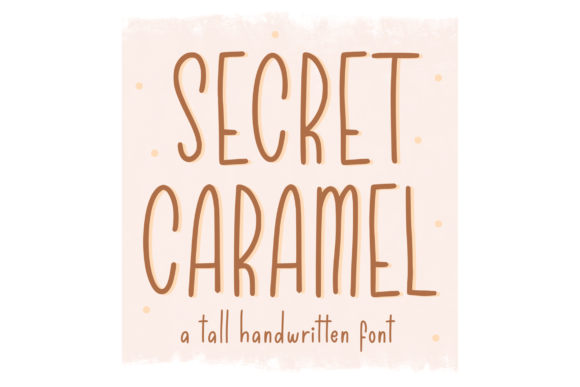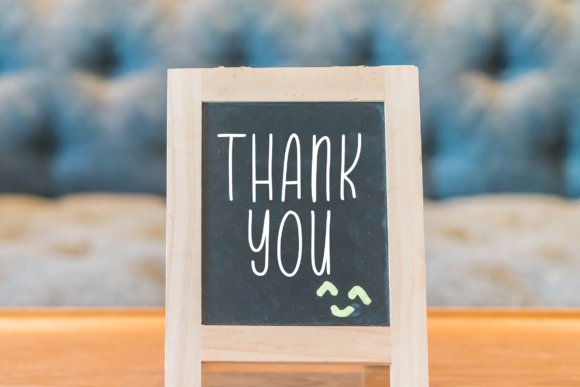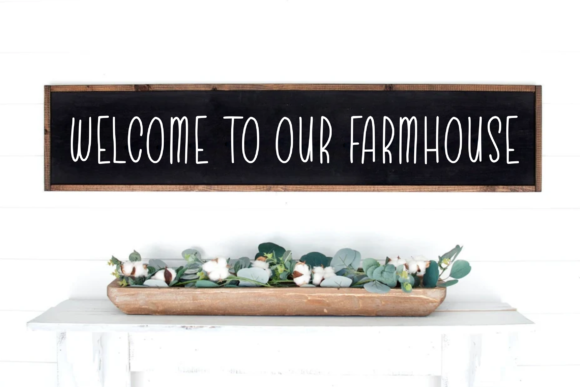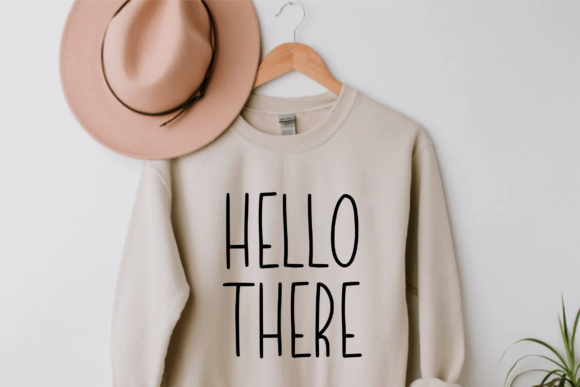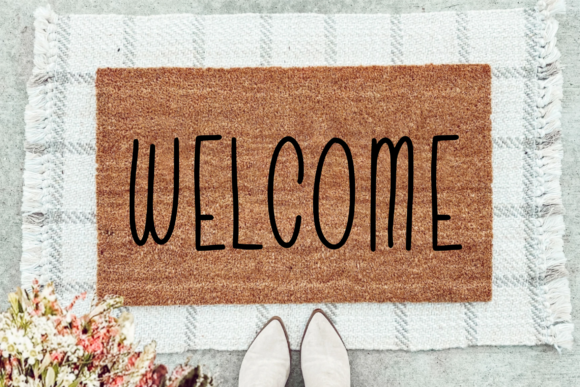
About Secret Caramel Font
“Secret Caramel” is not just your ordinary font; it’s an embodiment of creativity and versatility. With its tall handwritten style, this font stands out as a unique and charming addition to any design project. The name itself evokes a sense of mystery and sweetness, hinting at the delightful qualities that this font brings to the table.
Standing tall among its peers, “Secret Caramel” captures attention with its distinct letterforms that reach new heights. Its tall stature gives it a commanding presence, making it perfect for grabbing the viewer’s attention and leaving a lasting impression. Whether it’s on product packaging, branding projects, magazines, social media graphics, or wedding materials, “Secret Caramel” adds a touch of allure and sophistication to every piece it graces.
The handwritten nature of “Secret Caramel” adds warmth and authenticity to designs, making them feel more personal and inviting. It’s like a handwritten note from a friend, conveying a sense of care and attention to detail. This quality makes it ideal for conveying messages in a genuine and heartfelt manner, whether it’s expressing words above a background or delivering a memorable quote.
Moreover, “Secret Caramel” offers a wide range of creative possibilities. Its versatility allows it to adapt to various design styles and themes, from elegant and refined to playful and whimsical. This adaptability makes it a go-to choice for designers looking to inject personality and character into their projects.
In the realm of branding, “Secret Caramel” serves as a powerful tool for creating memorable and impactful identities. Its distinctiveness helps brands stand out in a crowded marketplace, while its handwritten charm adds a human touch that resonates with audiences on a deeper level.
When it comes to editorial design, “Secret Caramel” adds a touch of flair to magazines and publications. Its tall letterforms lend themselves well to headlines and titles, creating visual interest and drawing readers into the content.
On social media, “Secret Caramel” shines as a versatile font for creating eye-catching graphics and posts. Its playful yet elegant style helps content stand out in busy feeds, driving engagement and leaving a lasting impression on followers.
In wedding materials, “Secret Caramel” brings a touch of romance and sweetness to invitations, save-the-dates, and other stationery. Its handwritten charm adds a personal touch to these special occasions, making them even more memorable for couples and their guests.
Overall, “Secret Caramel” is more than just a font; it’s a versatile and charming companion for designers seeking to add a touch of sweetness and creativity to their projects. With its tall handwritten style and endless possibilities, this font is sure to become a beloved secret weapon in any designer’s toolkit.